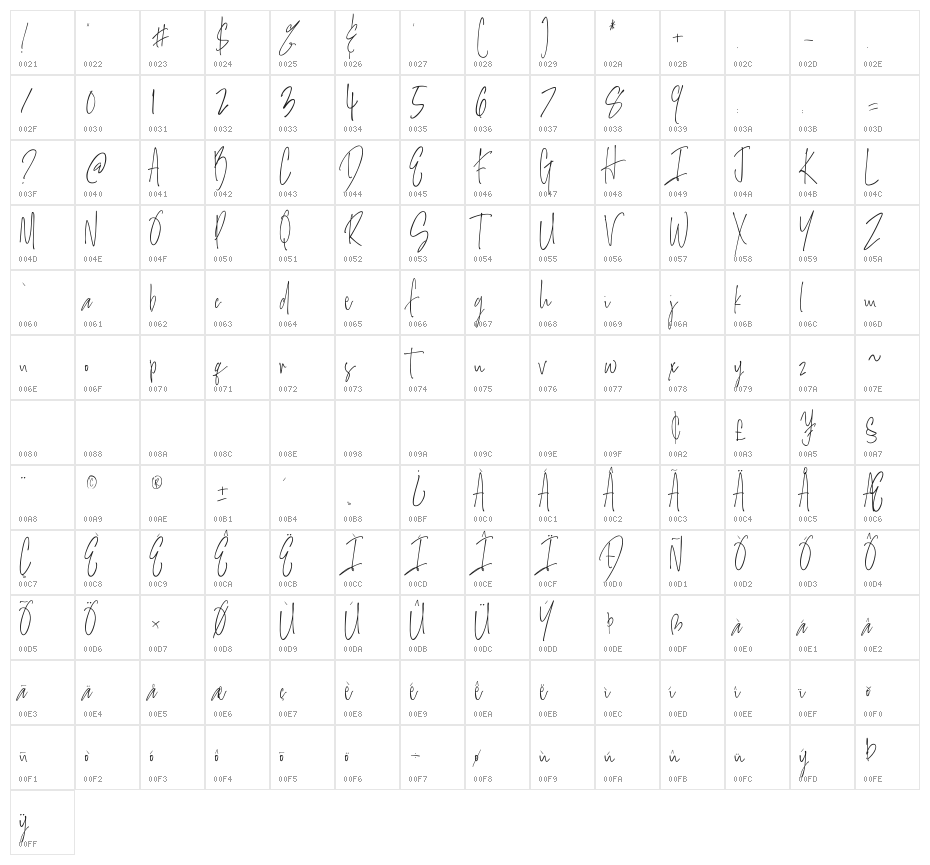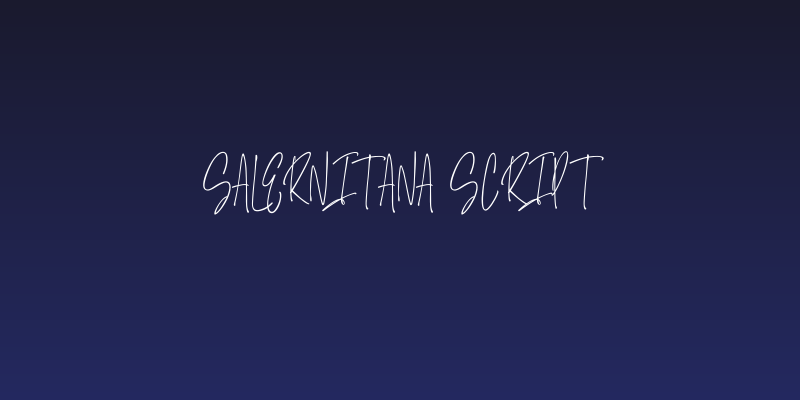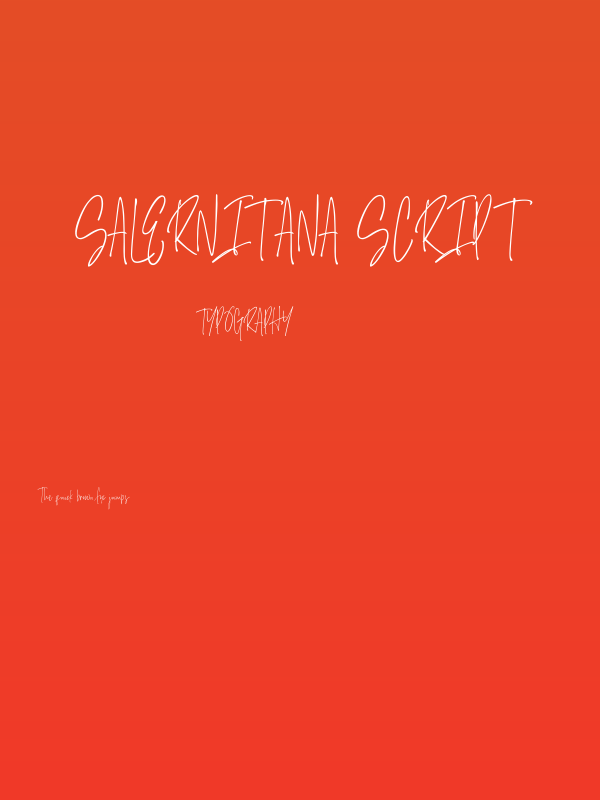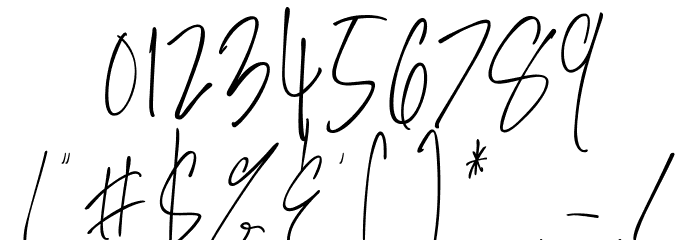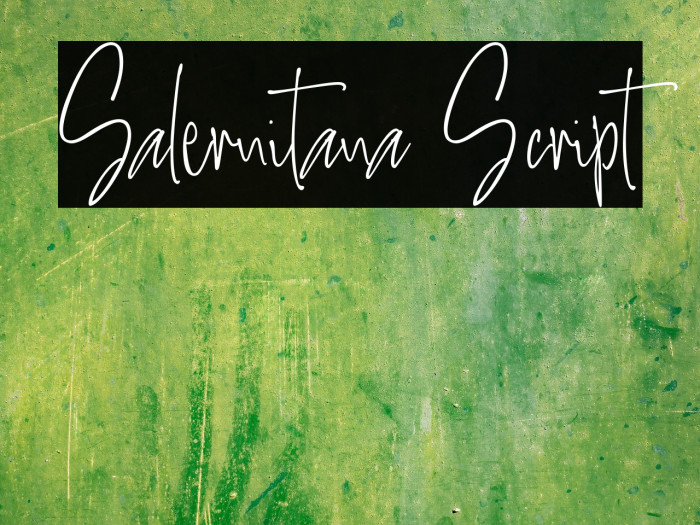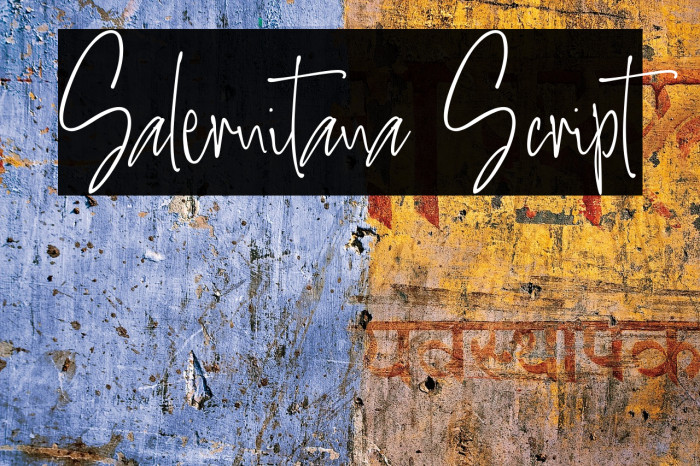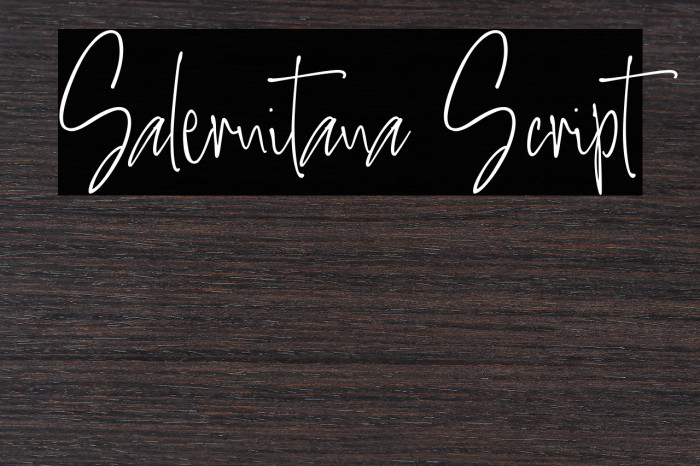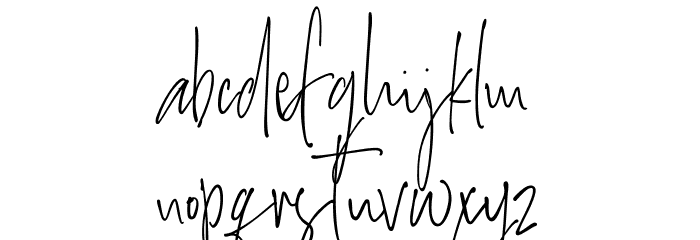
Salernitana Script Font
Salernitana Script Description
This font exudes a dynamic and expressive style, characterized by its fluid, handwritten appearance. The letters are elongated and slightly slanted, giving a sense of movement and spontaneity. The uppercase letters are tall and narrow, while the lowercase letters maintain a consistent flow, enhancing the script's natural feel. The numbers and special characters follow the same aesthetic, ensuring a cohesive look across all elements. The strokes vary in thickness, adding a touch of elegance and sophistication. This font is ideal for projects that require a personal and artistic touch.
| Overall Style | Artistic |
| Proposed Projects | Ideal for wedding invitations, personal branding, artistic posters, and creative social media graphics. |